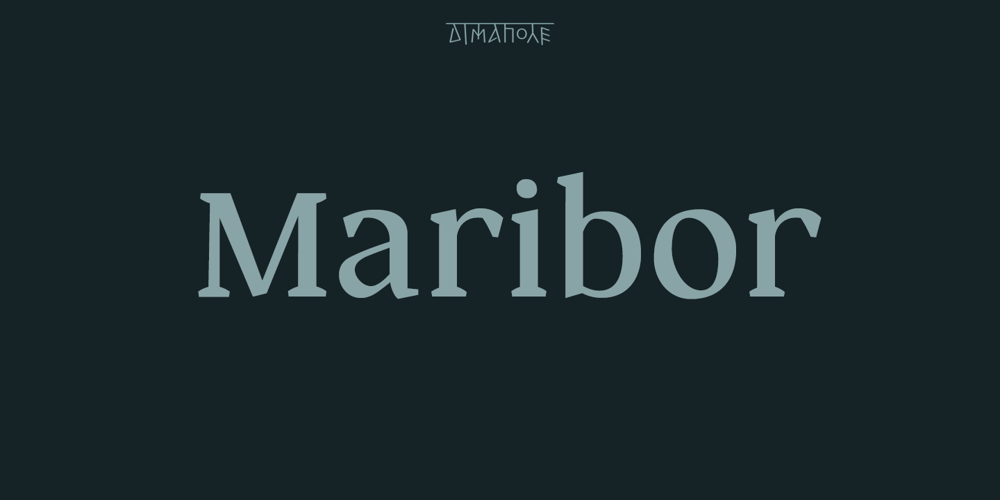
Maribor Font Family was designed by Dima Pole and published by Dima Pole. Maribor contains 2 styles and family package options. Maribor is a slab serif font with nice shapes, they are both soft and angular. It is perceived calmly and with a twist. Maribor means “Mara`s pinery”. The energy of the Universe, reflecting the modification, renewal and change for the better is called Mara; Ancient wise ancestors called it so. Today it is known as the goddess Mara in the Vedic worldview of the Slavic-Aryan peoples. Maribor is a multilingual font, it contains characters for 104 Latin languages and all Slavic, including all capitals for them. There are all major currency signs, including the ruble and the Euro. Many OpenType features allow you to make a variety of compositions; as well as to see the font from the new side thanks to the stylistic sets for the Slavic alphabets.